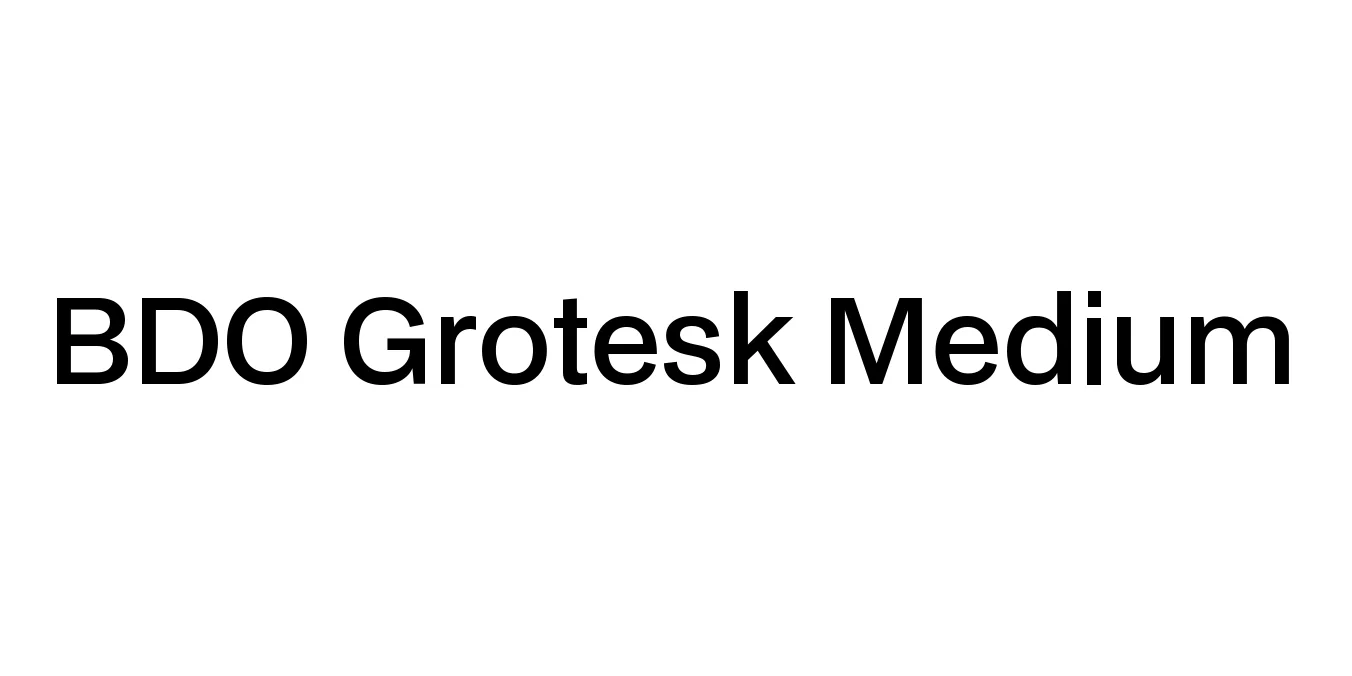
BDO Grotesk Medium
Designed by Creative Branding Team (BDO)
| Similar Fonts | Helvetica, Inter, Akzidenz-Grotesk |
BDO Grotesk Medium is a custom-designed typeface created specifically for the corporate identity of BDO Unibank. It was developed to provide a modern, clean, and highly legible aesthetic across both digital and print platforms. The design focuses on geometric clarity and a balanced weight, ensuring that financial information and marketing communications are conveyed with professionalism and trust.
This medium weight acts as the backbone of the font family, bridging the gap between bold headlines and smaller body text. Drawing inspiration from classic Swiss grotesques, BDO Grotesk Medium incorporates contemporary refinements to enhance readability on high-resolution screens. Its minimalist design reflects the brand's commitment to accessibility and modern banking services, making it a distinctive element of their visual language.
BDO Grotesk Medium Best Uses
Perfect for financial services and modern business identities.
Highly readable for mobile apps and web interfaces.
Strong performance in financial reports and professional magazines.